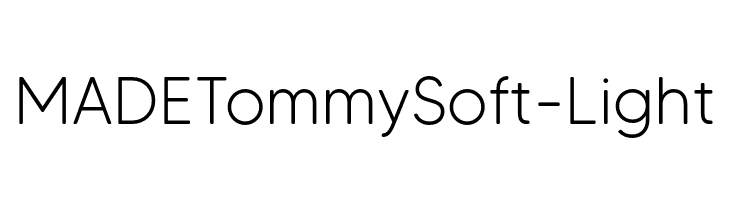
A modern, light sans-serif font with clean lines and balanced proportions.
A modern, rounded sans-serif font with a friendly and approachable style.
A thin, modern sans-serif font with geometric shapes and high legibility.